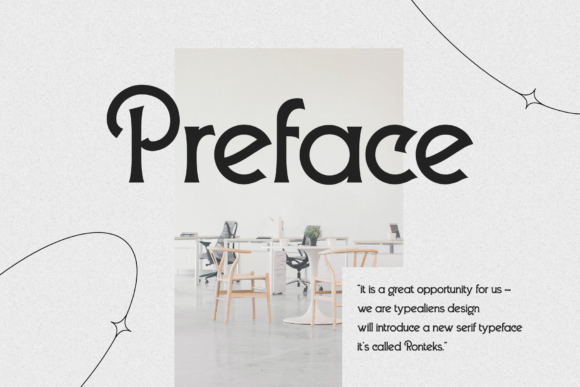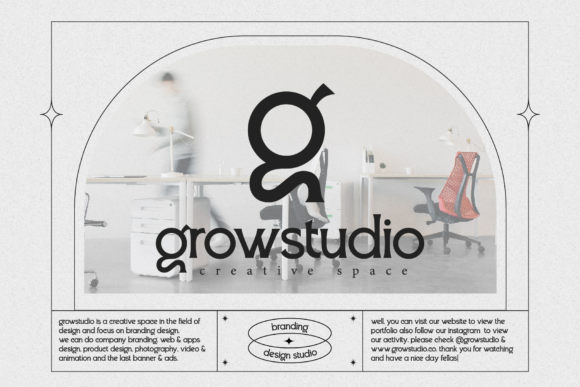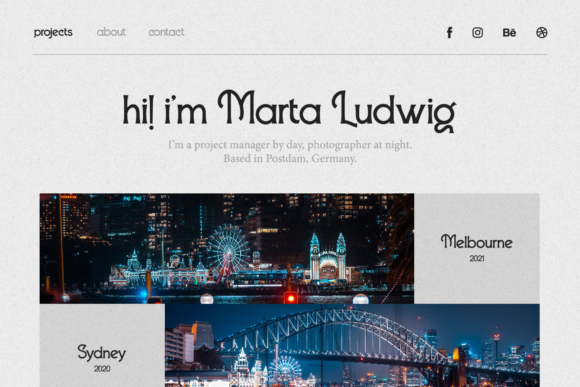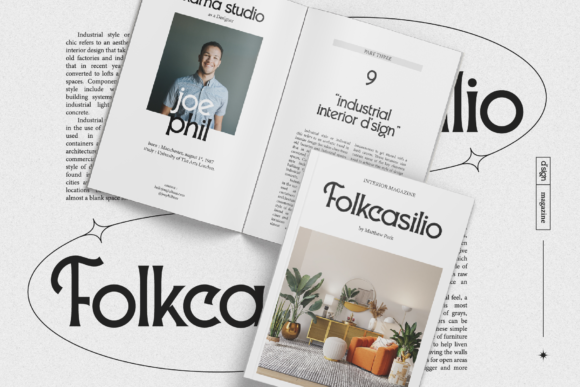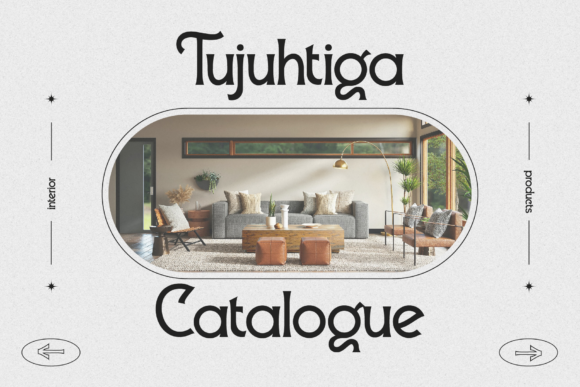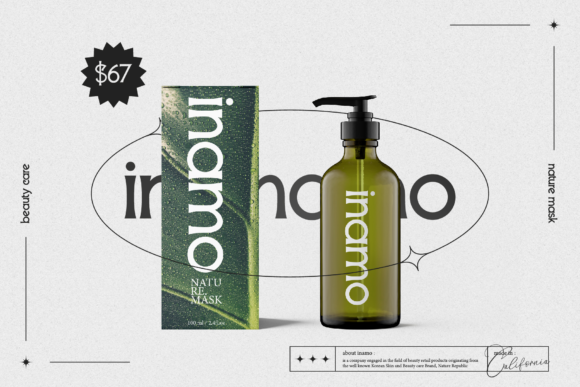
Introduction to Ronteks Font Font
Fonts play a crucial role in design, and the Ronteks Font font is a typeface that brings both character and versatility to any project. Whether you’re working on a branding project, a website, or a print design, the Ronteks Font font offers a unique style that can elevate your work.
Ronteks is a vintage styled and distinct display font.
It looks beautiful on a variety of designs requiring a personalized style, such as wedding invitations, thank you cards, weddings, greeting cards, logos and so on .
Key Features of Ronteks Font Font
Why Choose Ronteks Font Font?
The Ronteks Font font is more than just a typeface – it’s a design tool that helps you communicate your message with style and clarity. Its unique character set and versatile design make it suitable for a wide range of applications, from elegant invitations to bold headlines.
With its carefully crafted letterforms and balanced proportions, the Ronteks Font font ensures readability and visual appeal across all mediums.
What makes Ronteks Font font special?
The Ronteks Font font stands out with its unique design, exceptional readability, and versatility across various design applications.